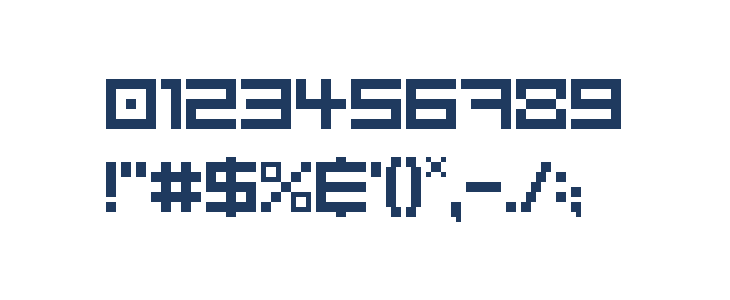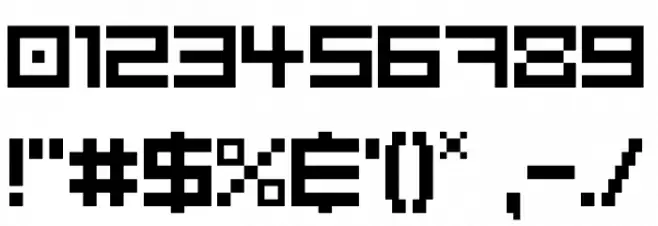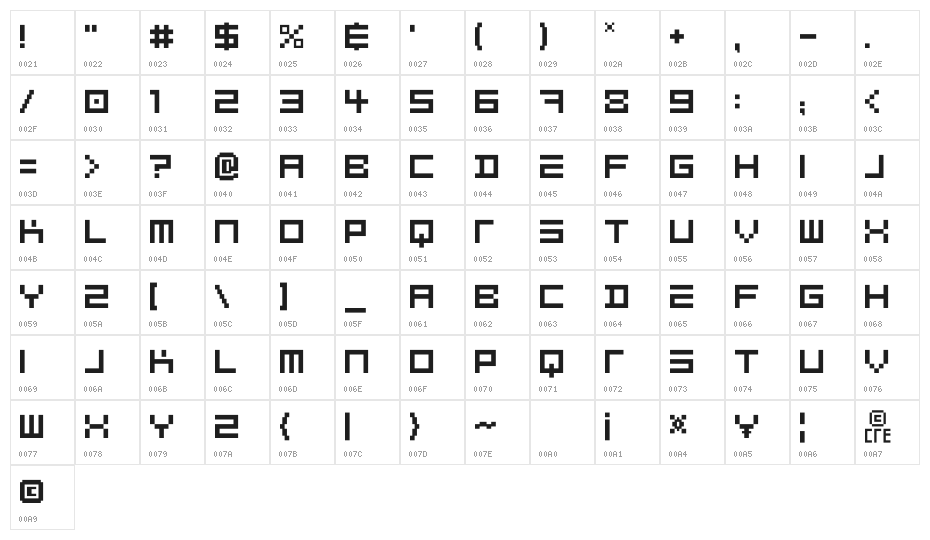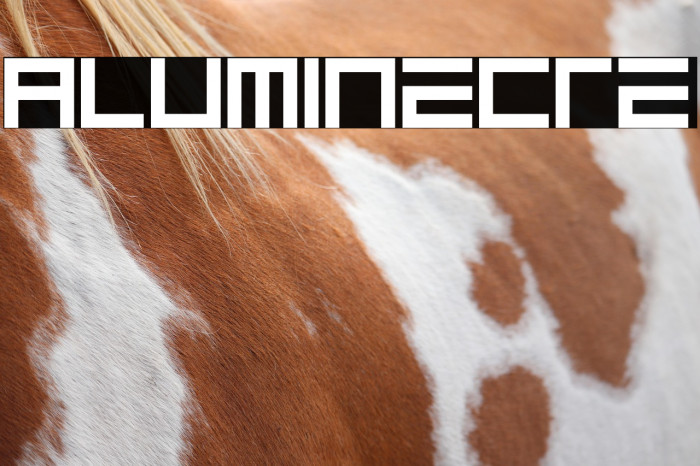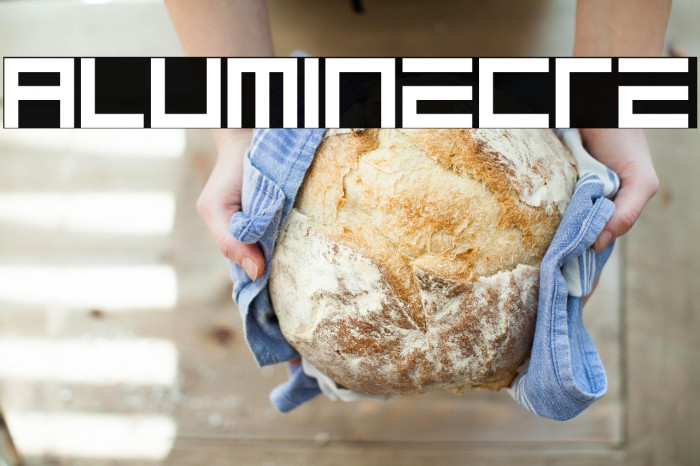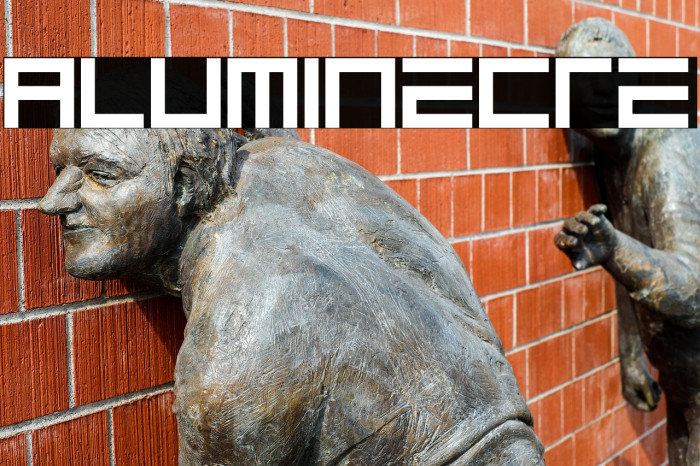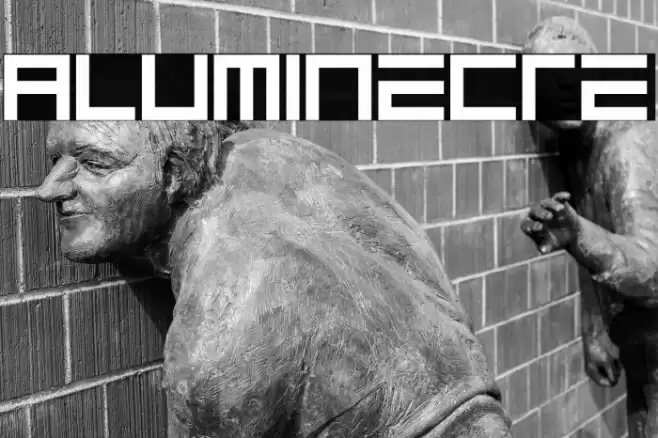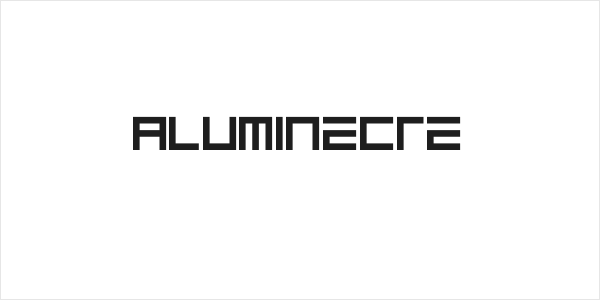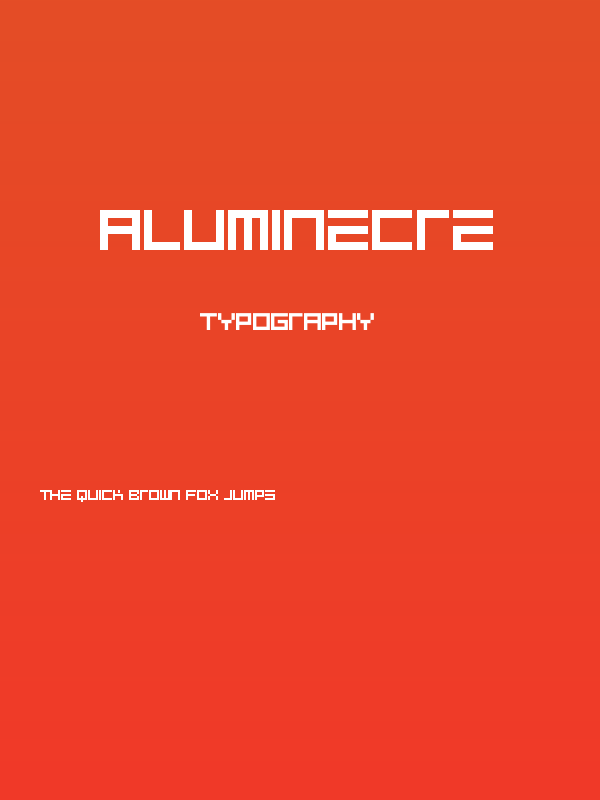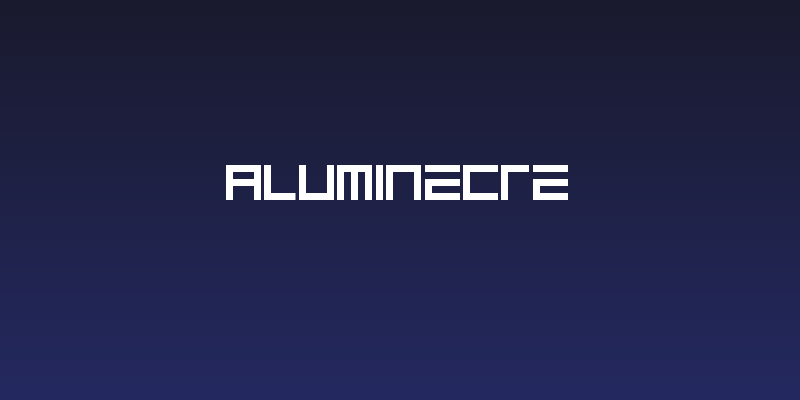
ALUMINECRE Font
ALUMINECRE Description
This font exhibits a bold, geometric style with a pixelated appearance reminiscent of early digital displays or retro video games. The characters are constructed with uniform square blocks, giving it a distinctly digital and modern aesthetic. The uppercase and lowercase letters share a similar height, contributing to a monospaced feel. The numbers and special characters maintain the same blocky design, ensuring consistency across all glyphs. This font's rigid structure and lack of curves make it highly legible in digital formats, though it may not be suitable for lengthy text due to its unique style.
| Use Case | Logos, Headlines, Digital displays |
| Proposed Projects | Ideal for retro video game designs, digital art projects, tech-themed posters, or any creative work that requires a futuristic or digital look. |